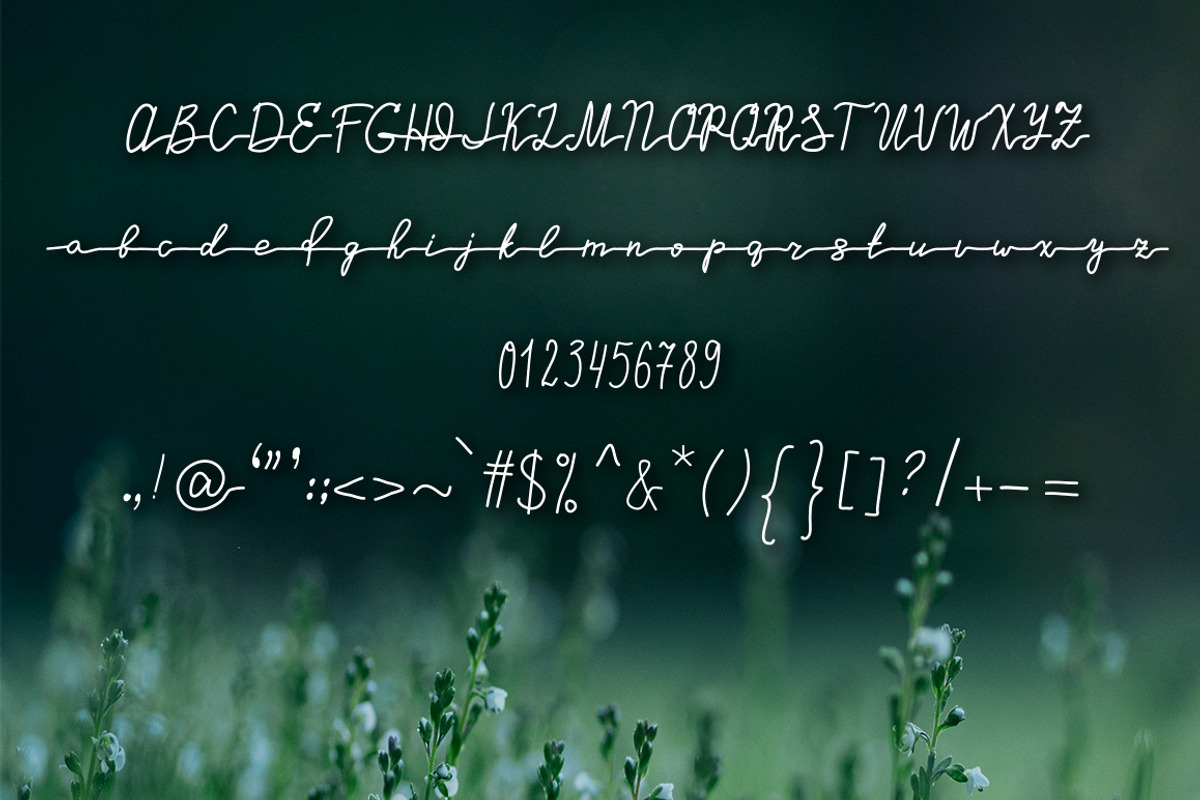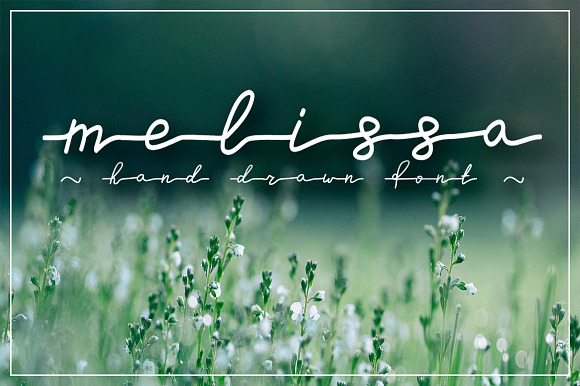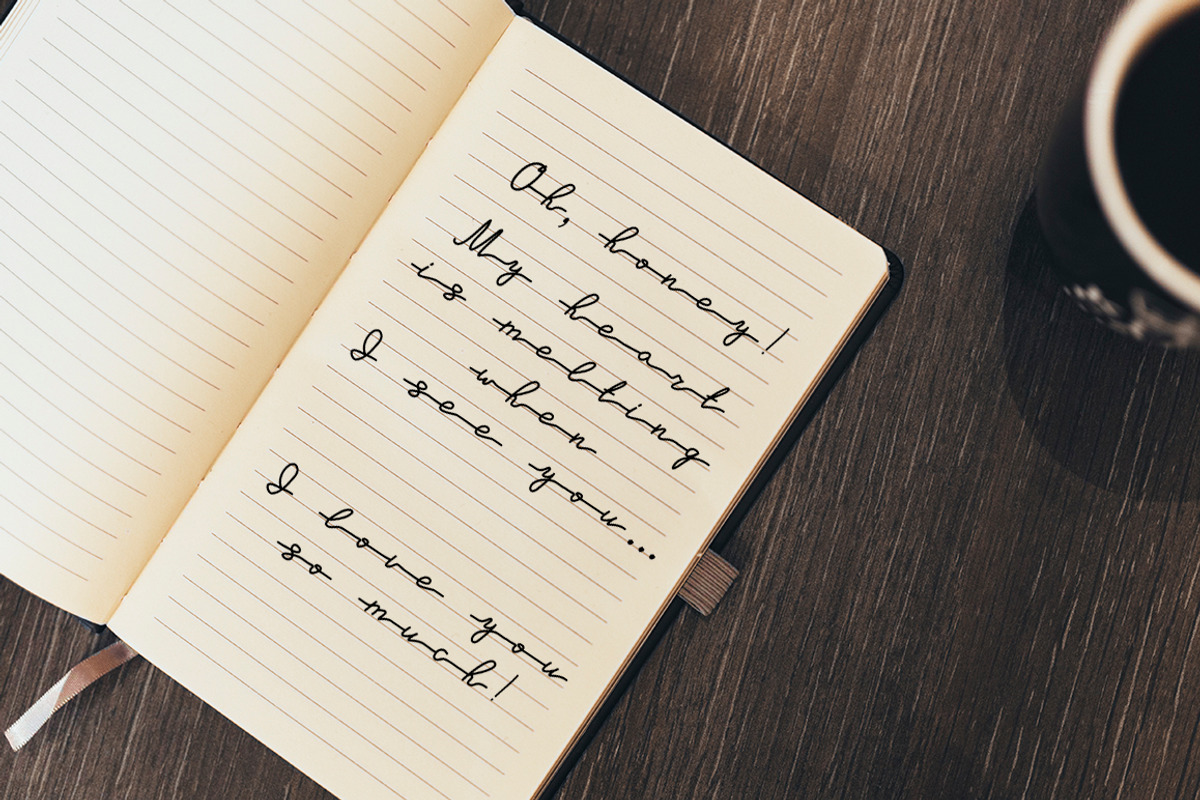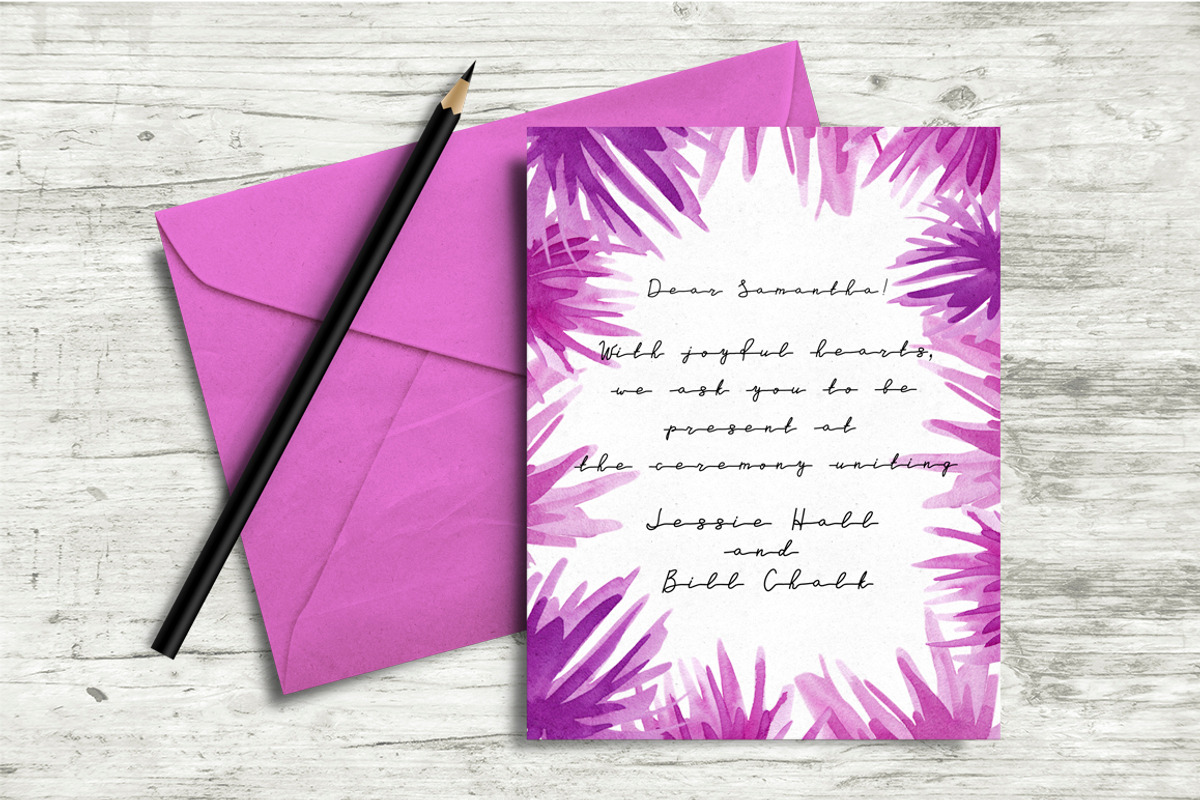
Melissa - hand drawn script font
Here comes Melissa Font - my handwritten script font containing upper & lowercase characters, numerals and a large range of punctuation. It looks great on wedding invitations and other cards, creating cute and accurate effect of hand-writing.
- Here comes Melissa Font - my handwritten script font containing upper & lowercase characters, numerals and a large range of punctuation.